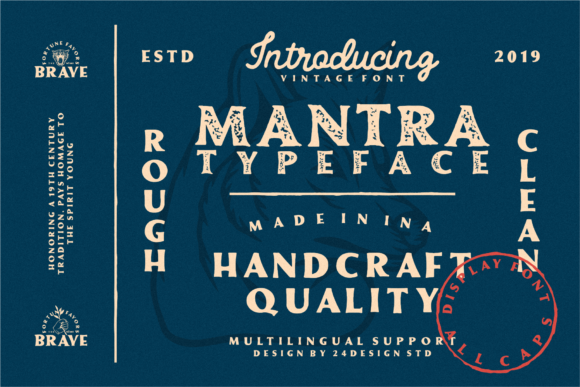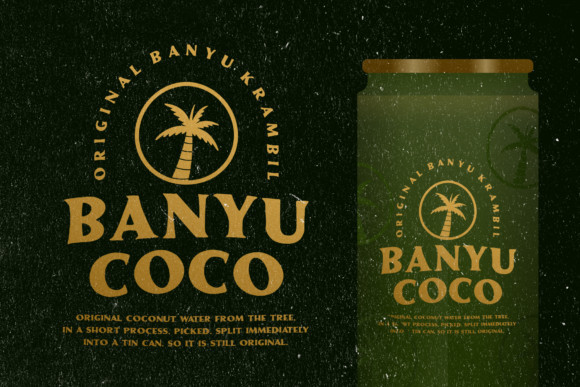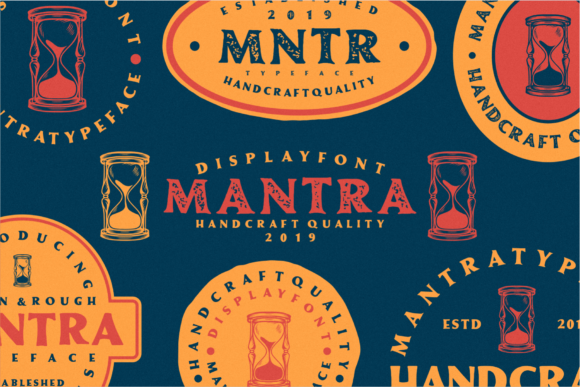
Mantra Font
Mantra is a classic font coming in two styles that are both clean and rough. This font is perfectly suitable for classic or vintage designs!